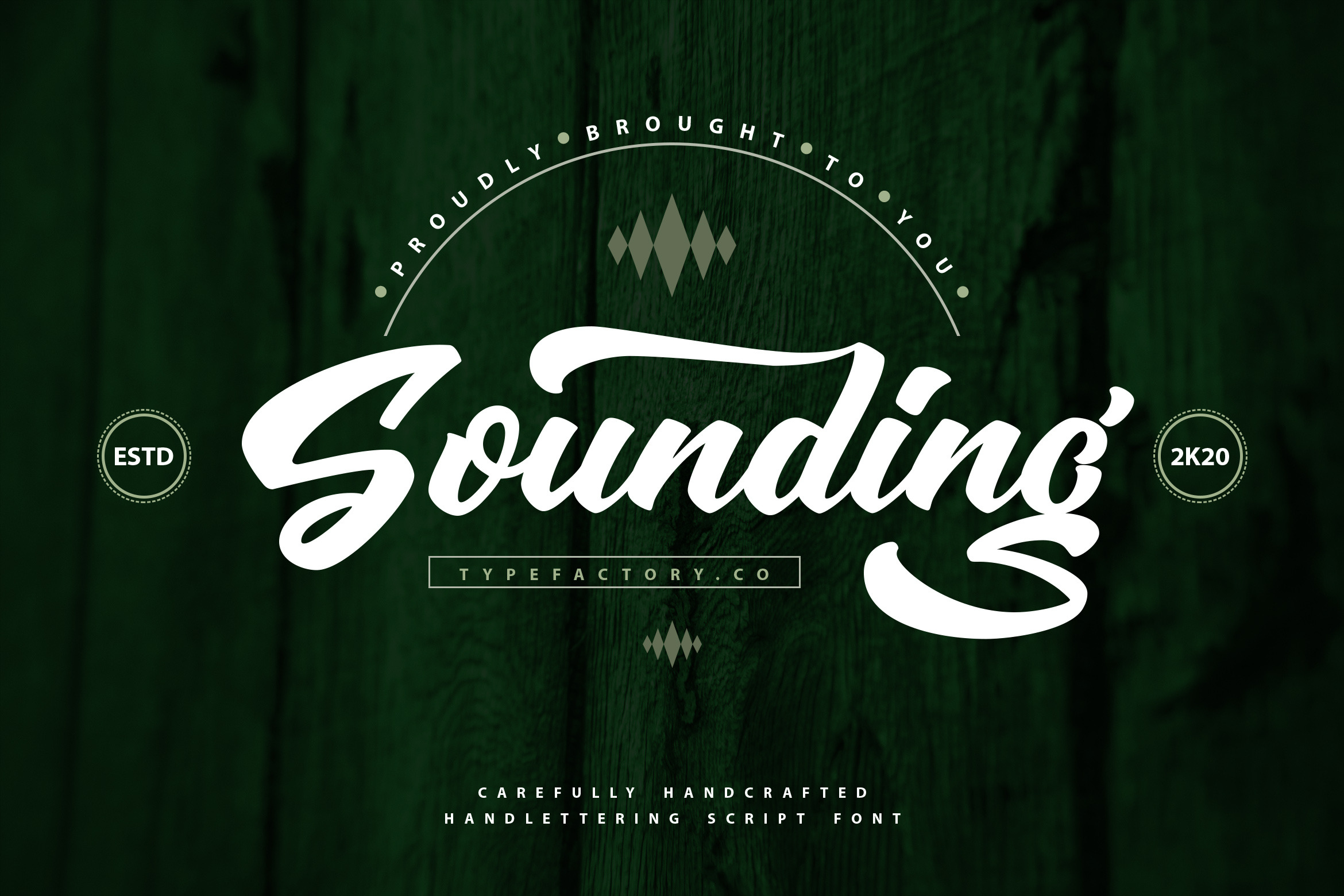
Sounding - Handlettering Script Font
Sounding is a Script typeface, perfectly suitable for creating quotes, sport, lifestyle designs such as logos, titles, magazines, and more.